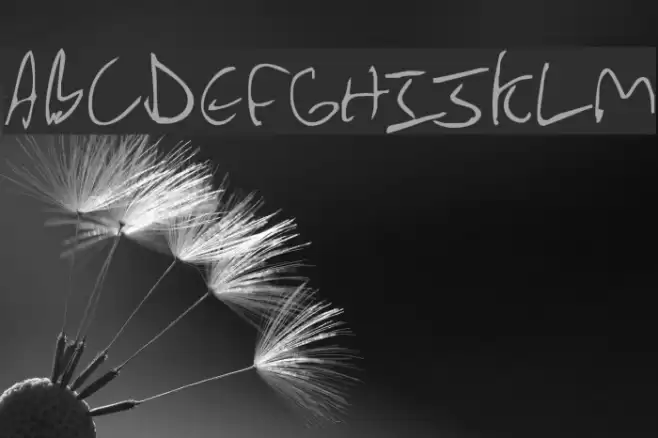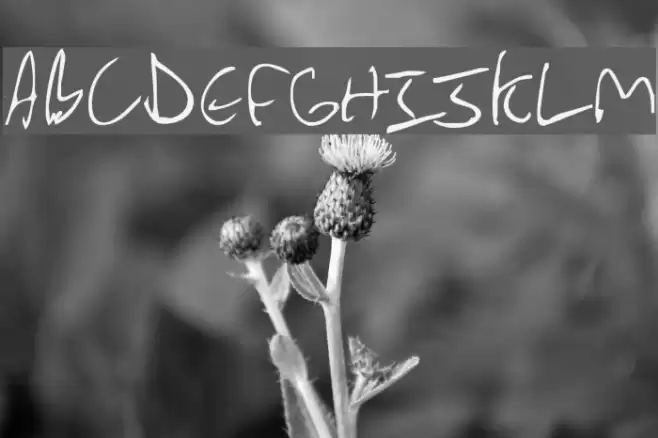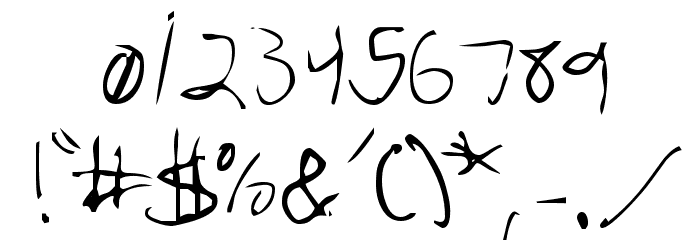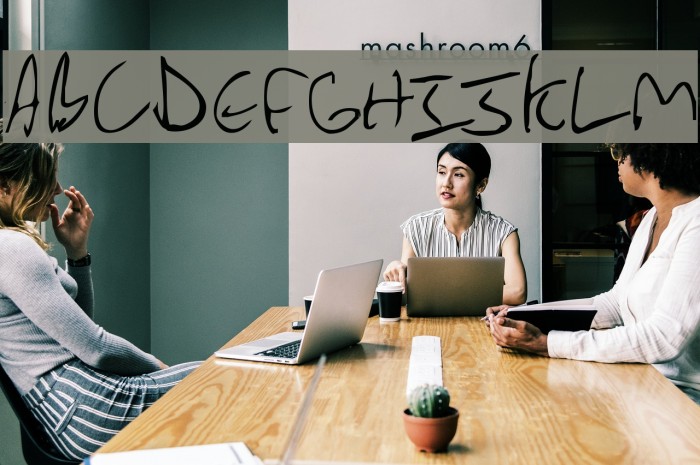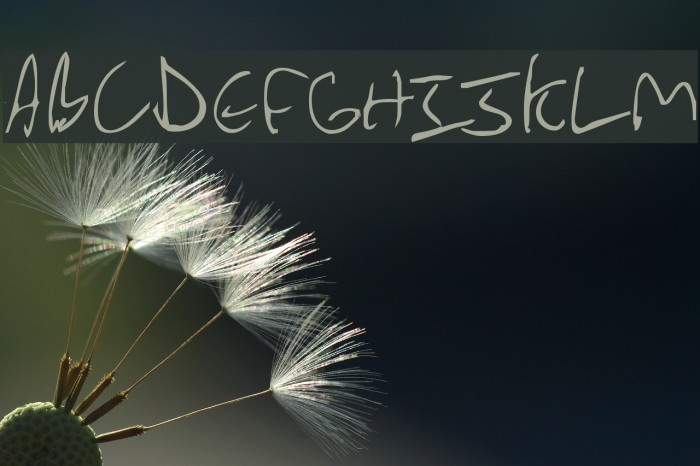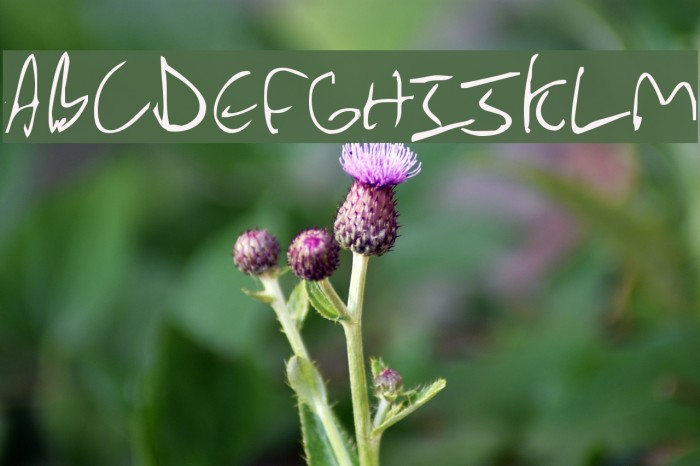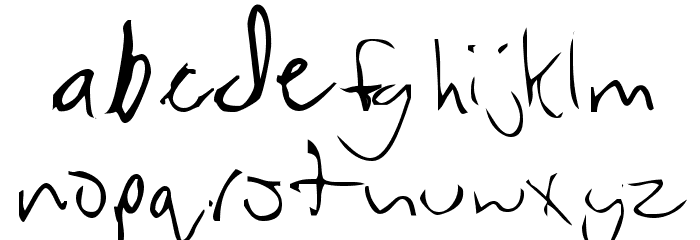
WolfieBoy Font
WolfieBoy Description
This font exhibits a lively and spontaneous handwritten style, characterized by its fluid and dynamic strokes. The letters have a casual, informal appearance, with varying stroke widths that add to its energetic feel. The uppercase and lowercase letters maintain a consistent style, though the lowercase letters are slightly more compact. Numbers and special characters are integrated seamlessly, maintaining the same playful and expressive quality. The overall impression is one of creativity and personal expression, making it suitable for projects that require a human touch.
A lively, handwritten font with dynamic strokes and a casual, expressive style from Script fonts.
- Proposed Projects: Ideal for personal notes, creative projects, greeting cards, and informal branding.
- Overall Style: Casual, Expressive
- Use Case: Logos, Greeting cards, Personal notes